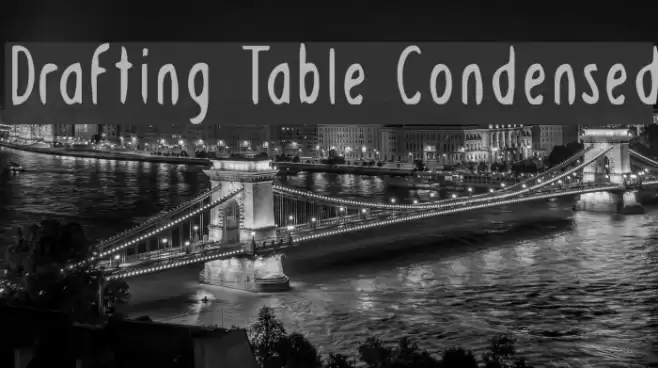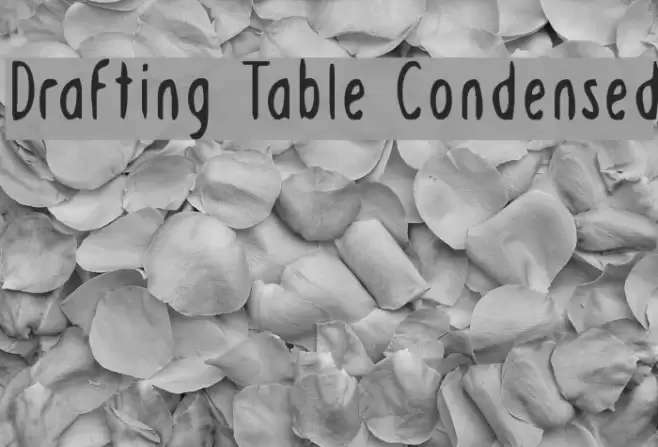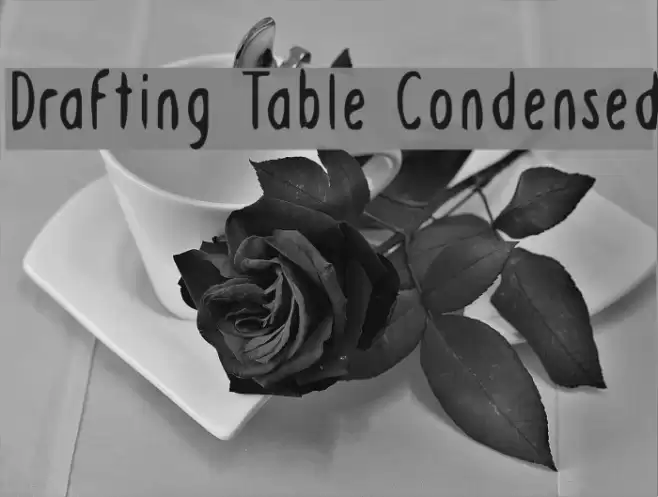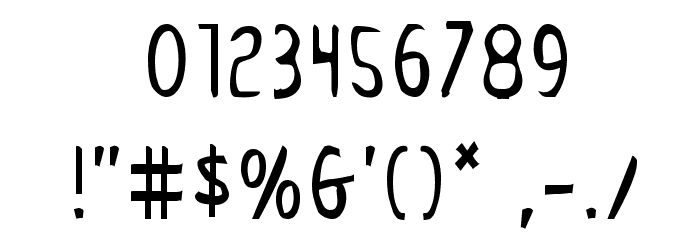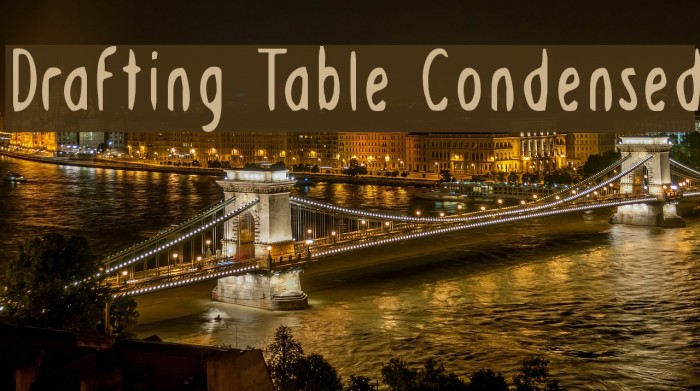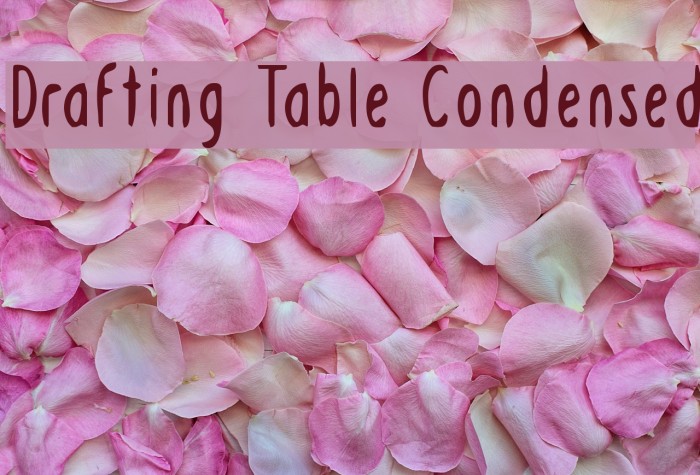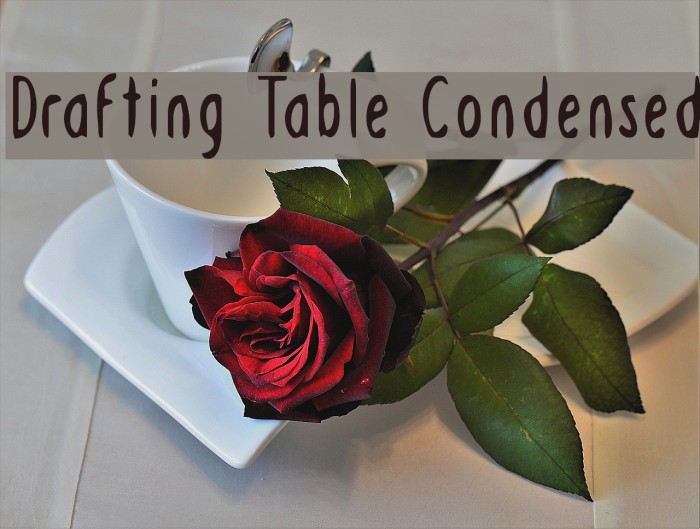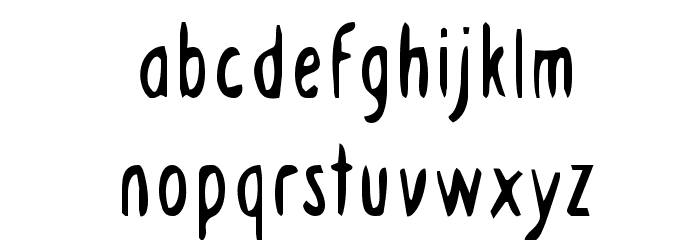
Drafting Table Condensed Font
Drafting Table Condensed Description
This font features a playful and informal style with a handwritten appearance. The characters are slightly condensed, giving it a unique and quirky look. The strokes are uneven, adding to its casual charm. The uppercase letters are bold and prominent, while the lowercase letters maintain a consistent flow. Numbers and special characters are designed to match the overall style, making it versatile for various creative projects. The font's distinct personality makes it suitable for designs that require a touch of whimsy and individuality.
A playful, handwritten-style font with a condensed and quirky appearance from Comic fonts.
- Proposed Projects: Ideal for greeting cards, children's books, playful branding, and casual invitations.
- Overall Style: Casual
- Use Case: Headlines, Logos, Invitations